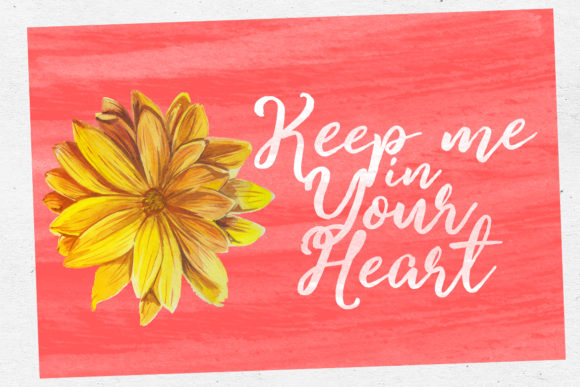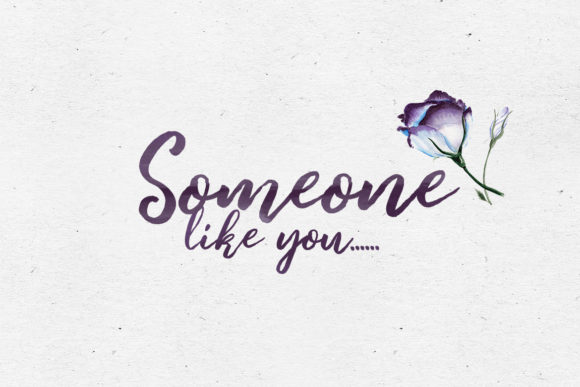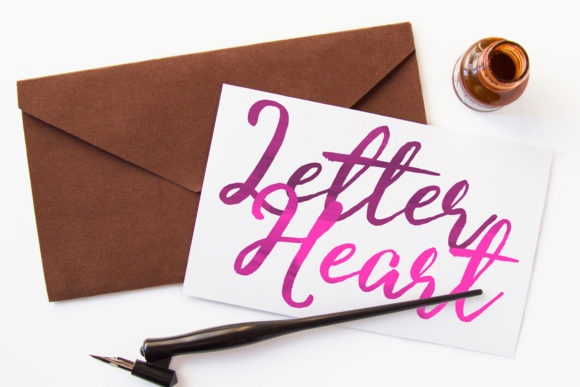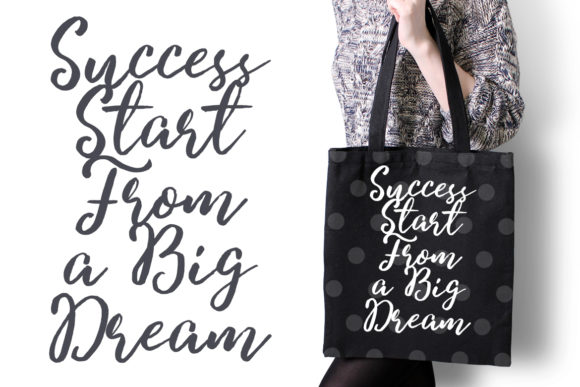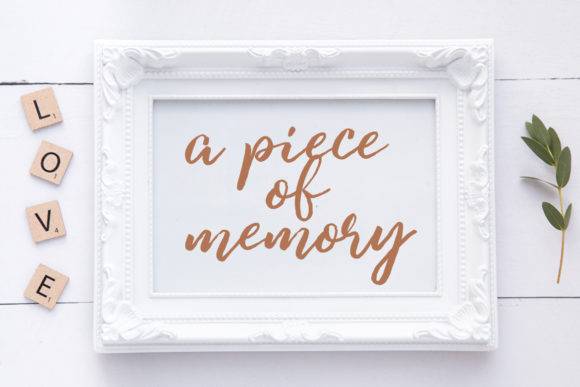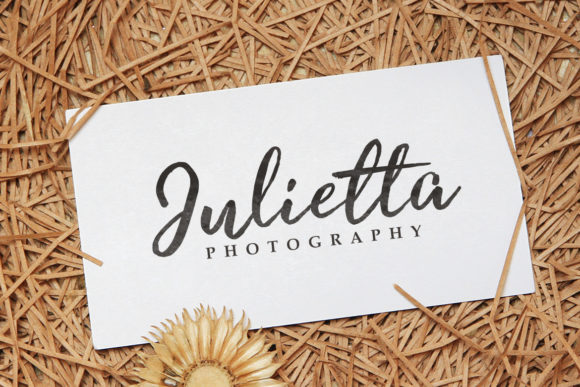
Discover the Warmth of Charitta Font
Have you ever stared at a blank page, waiting for inspiration to strike? For designers, those moments can be the most thrilling – a chance to bring a new idea to life. And sometimes, all it takes is the right font to spark that creative spark.
Enter Charitta Font, a beautiful, down-to-earth handwritten font that embodies the essence of organic design. Its unique charm is perfect for adding a personal touch to any project. Whether you’re working on a branding campaign, a wedding invitation, or a blog post, Charitta Font is the perfect companion to help you convey your message with warmth and character.
As a designer, you know the value of a well-chosen font in elevating your work. Charitta Font is a game-changer, offering a level of sophistication and whimsy that’s hard to find in other fonts. So why not give it a try and see the magic it can bring to your next design project?
Charitta Font Key Features
- Size: The font family includes multiple weights, from Light to Bold, offering flexibility in typography and design.
- Unique Characteristics: The font features a unique blend of modern and traditional elements, with elegant lines, subtle flourishes, and a distinctive aesthetic.
Review of Charitta Font
I recently had the chance to work with the Charitta Font, and I must say it’s a mixed bag. Here are my thoughts:
- The Charitta Font has a unique and elegant feel to it, perfect for adding a touch of sophistication to any design project.
- The font’s script-like quality makes it ideal for titles, headings, and other attention-grabbing elements.
- The font’s versatility allows it to work well in both print and digital formats.
- The font can be a bit difficult to read at smaller sizes, which may limit its use in certain contexts.
- The font’s script-like quality can also make it a bit challenging to use for body text, as it can be hard to distinguish between letters.
- The font’s overall aesthetic may not be to everyone’s taste, so it’s essential to consider your target audience before using it.
The Charitta Font is a beautiful and elegant font that can add a touch of sophistication to any design project. While it may have some limitations, it’s a great choice for projects where you want to make a statement. Just be sure to use it judiciously and consider your target audience before making a final decision.
Charitta Font Practical Application Guide
Charitta Font is ideal for creating elegant and sophisticated designs, such as:
– Wedding invitations and stationery
– Luxury branding and packaging
– Editorial and publishing designs
For the most effective use of Charitta Font, use it sparingly and in combination with other elegant fonts to create a balanced and visually appealing design.